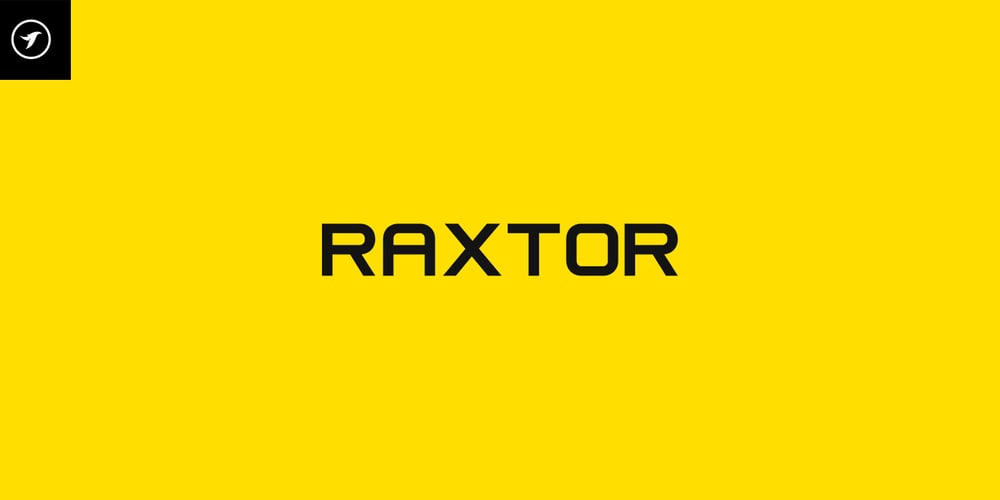
Raxtor Font Family was designed by Jean Johnson and published by Designova. Raxtor contains 4 styles and family package options. RAXTOR is a unique typeface for headlines, big text, branding, logotypes & display usage. This all-caps typeface is also perfect for creating great logos, promotional content and marketing graphics that lift the creative aspects of the design. Please see the examples shown above to get an idea about the capability of this typeface.